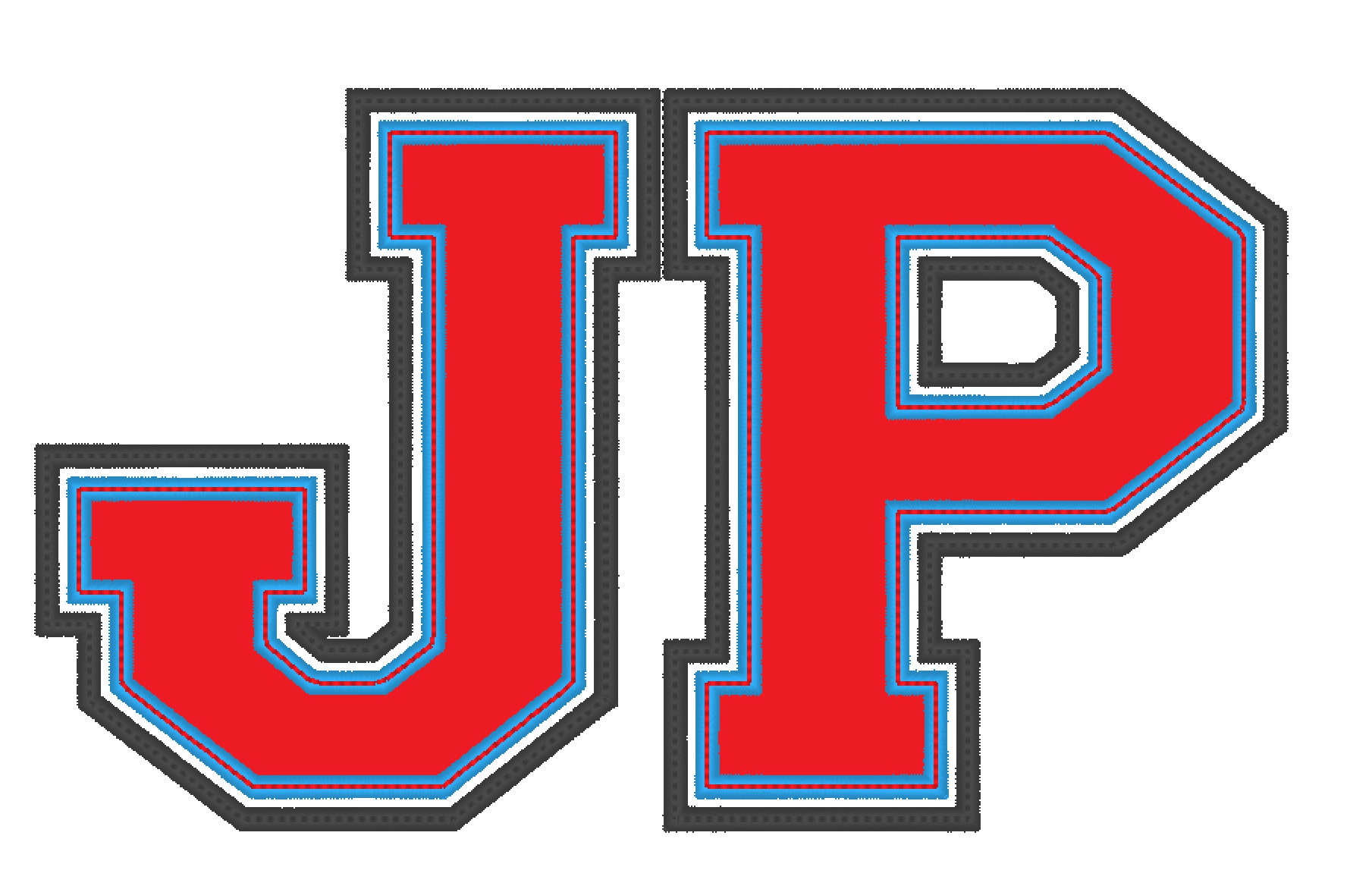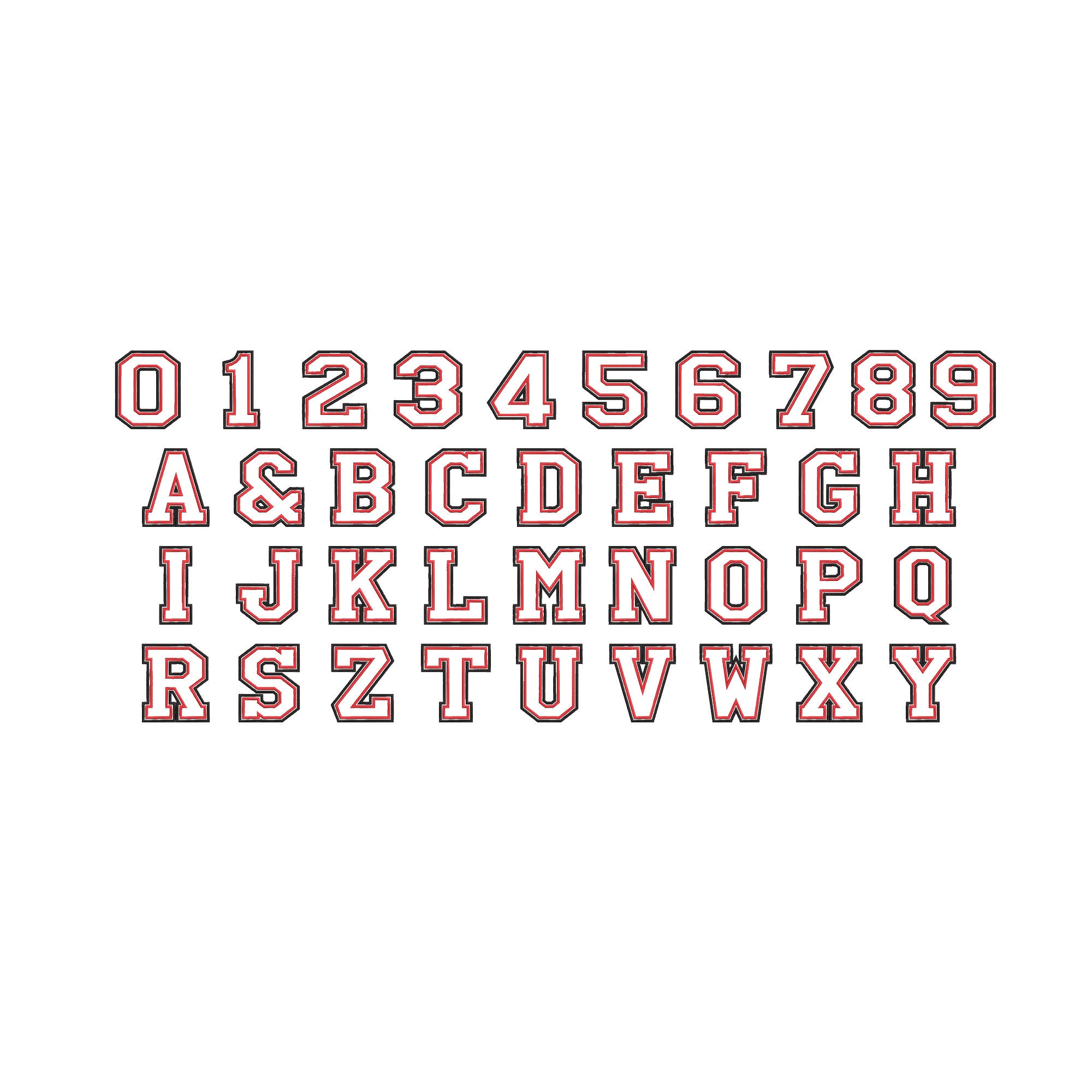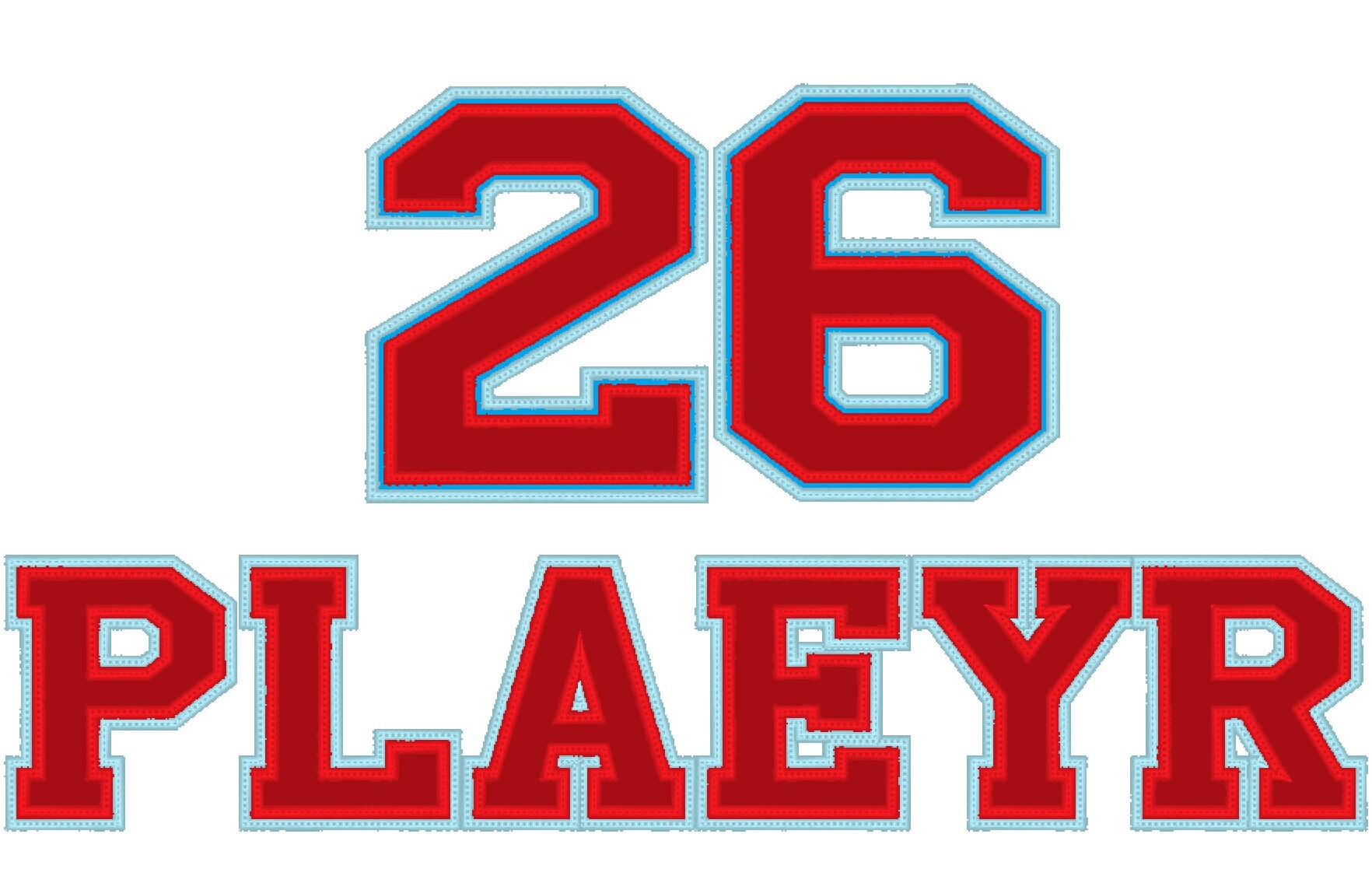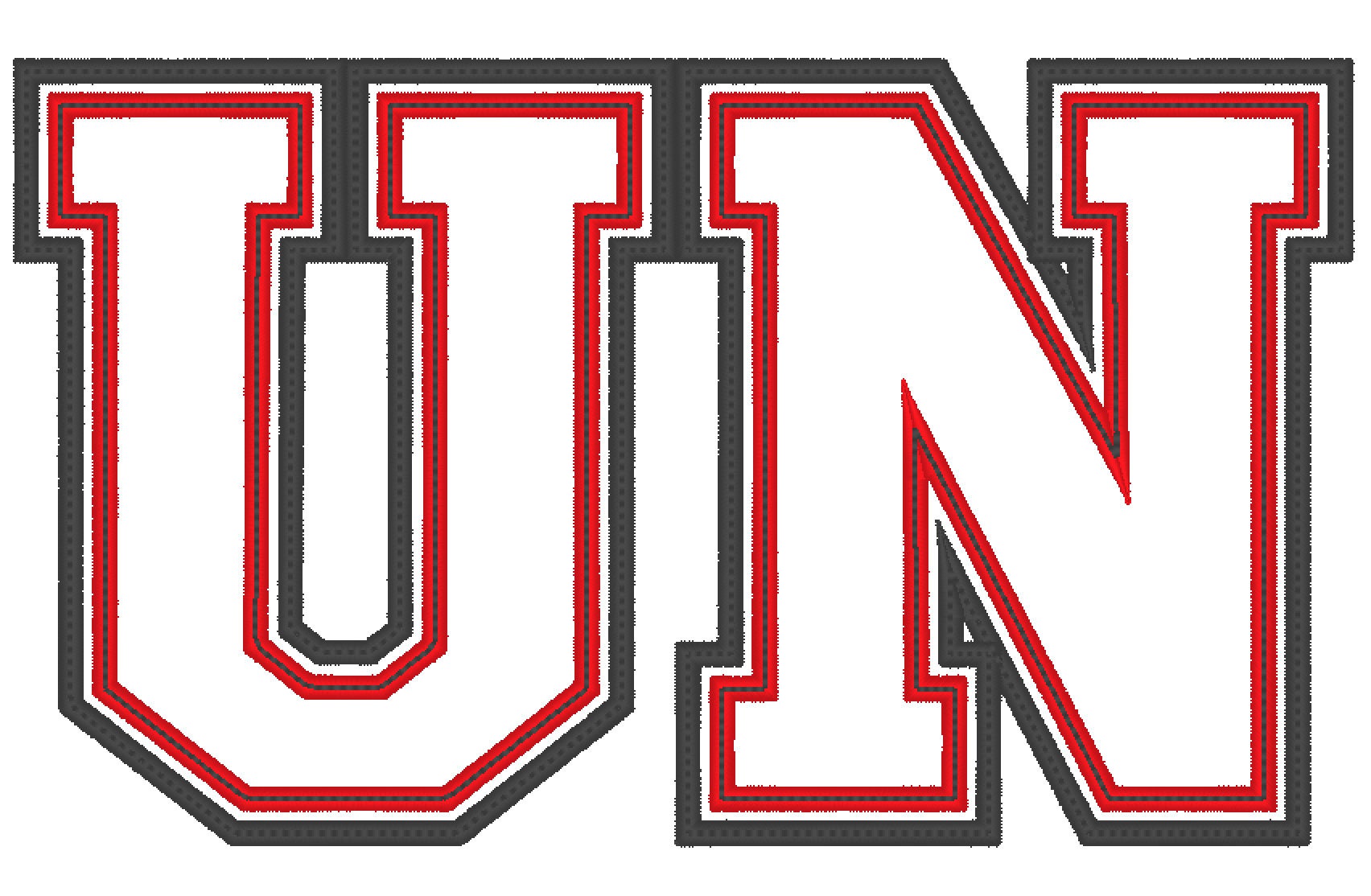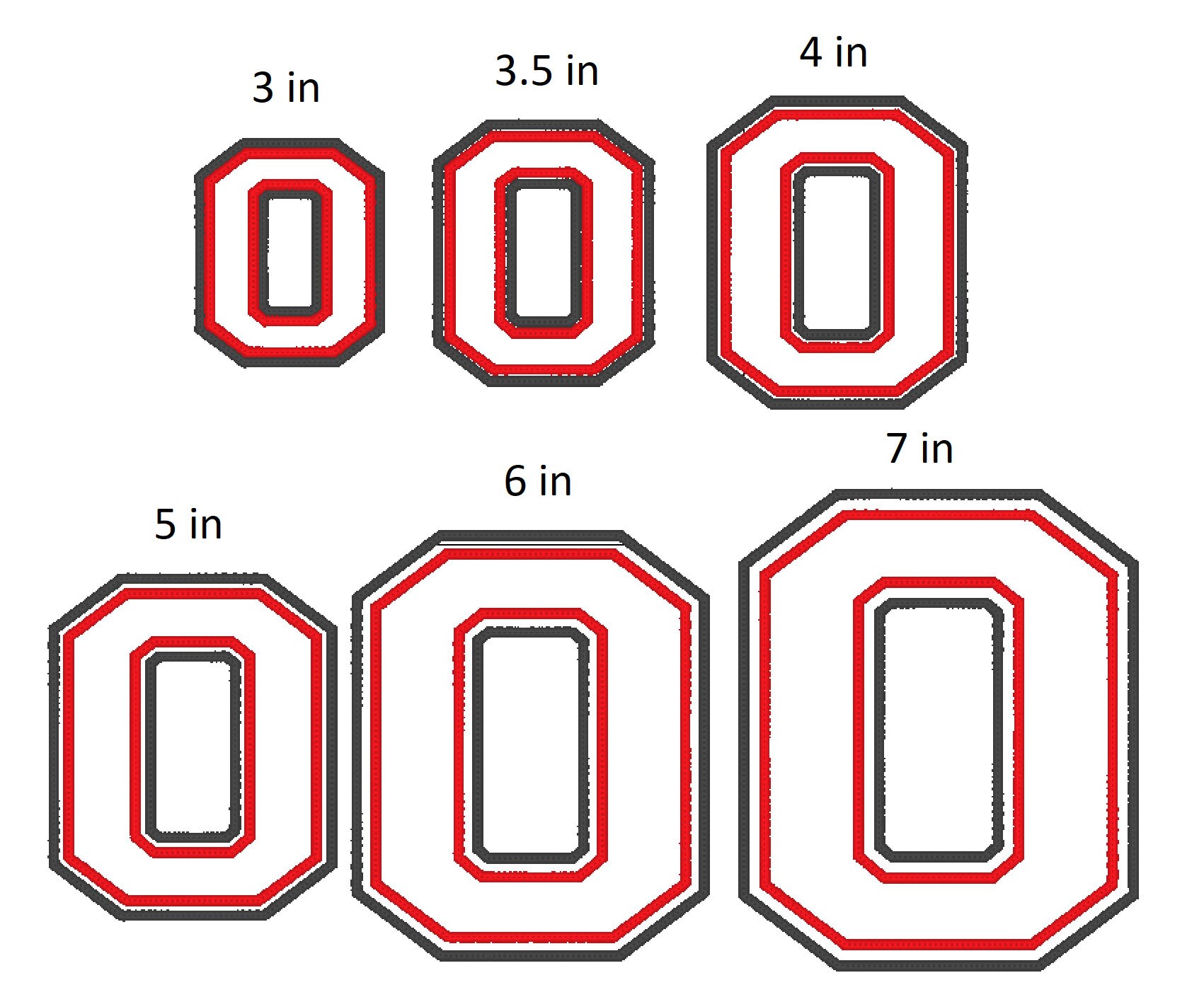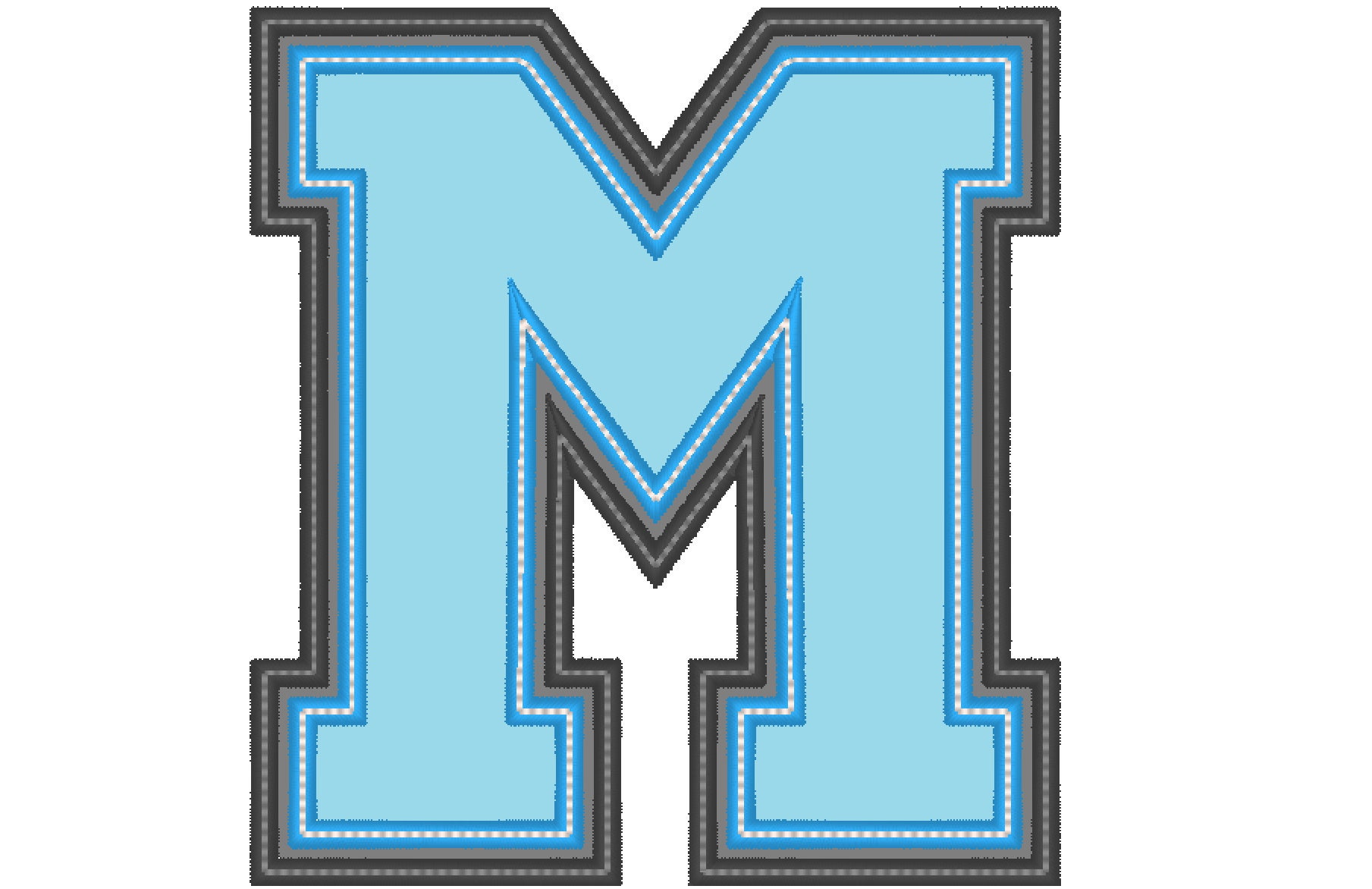
2 layers Sport High school varsity collegiate block applique Font machine embroidery designs 2 layers applique, sport athletic font monogram
This font has 2 layers of applique steps:
1. background color
2. letter color
Letters have a wide nice satin stitch and a neat top stitch to secure the applique satin stitch in the wash!